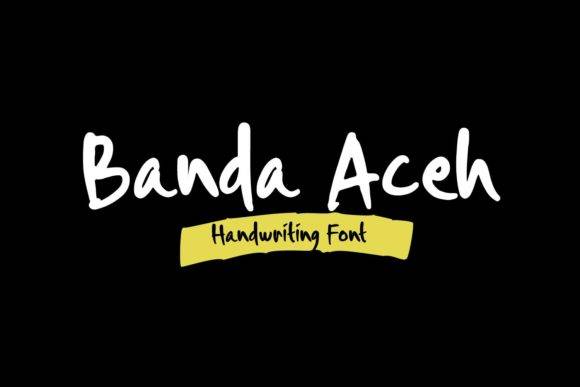
The Banda Aceh Font is a custom lettering asset built for high-impact crafting and printable design use. Delivered in standard font formats, it provides scalable vector characters that integrate smoothly into cutting machines and print workflows. With its bold and unique style, the Banda Aceh Font elevates any project, making it ideal for branding, signage, and marketing materials. For those seeking additional versatility, the barbara font for design projects offers a complementary aesthetic that can enhance visual storytelling. Together, these fonts provide creative professionals with dynamic tools to bring their visions to life.
This font is ideal for typographic projects requiring clarity, elegance, and production efficiency. As a digital font, it serves both personal and commercial creators producing high-volume or one-off products.
- Clean lines ideal for cutting, printing, or layering